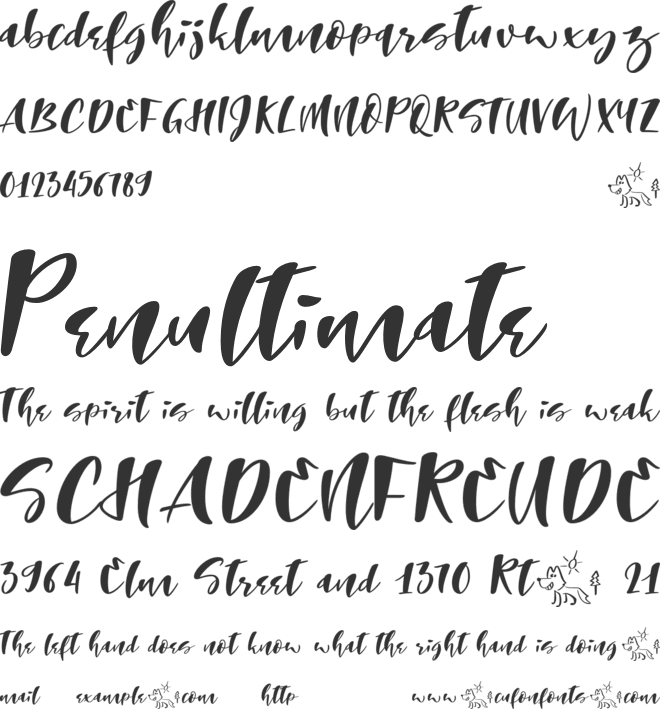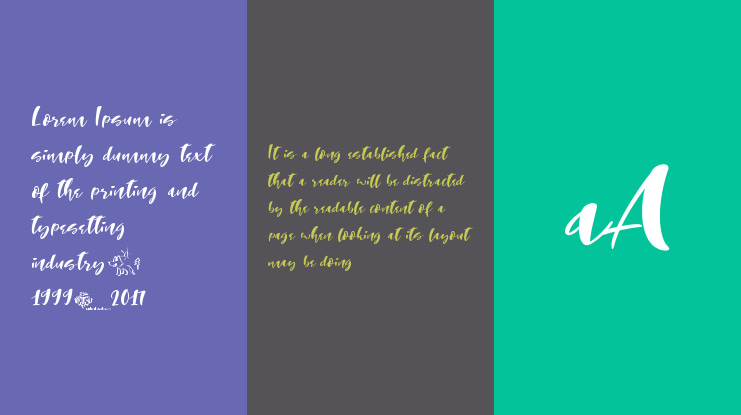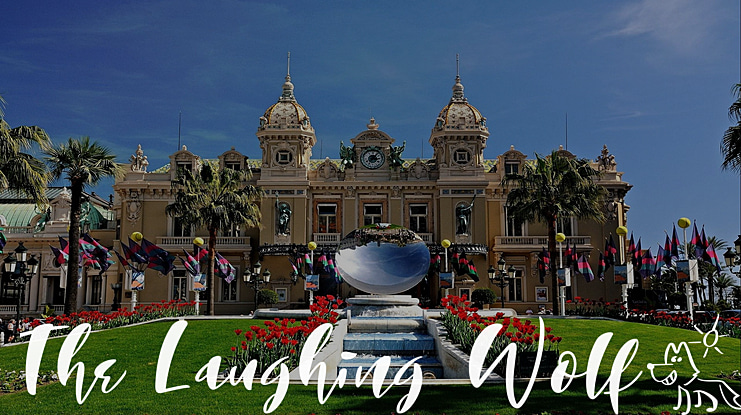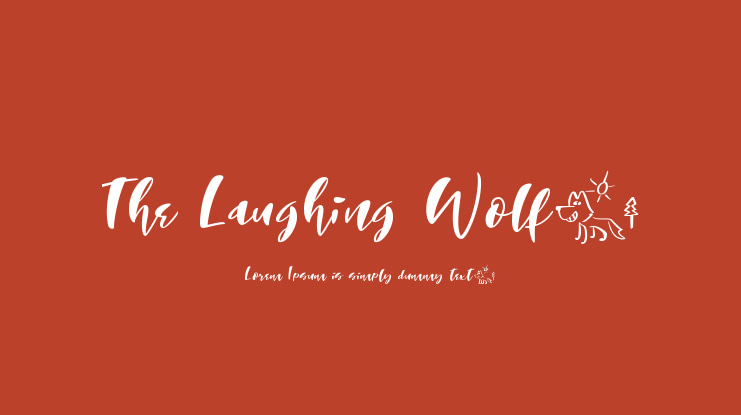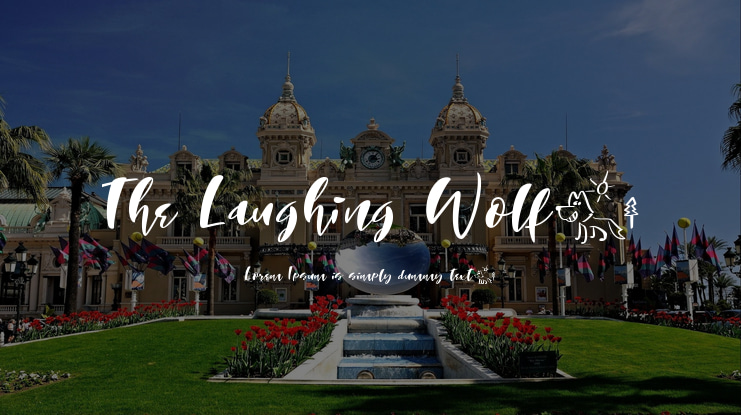
The Laughing Wolf. Font
THE LAUGHING WOLF is a brush / iPad script font. Carefully designed, clean vectors in Glyphs App. You can create beautiful hand-made typography with its bouncy, organic flow.
This is the DEMO version of the font, the Laughing Wolf doodle is in the place of the period glyph.